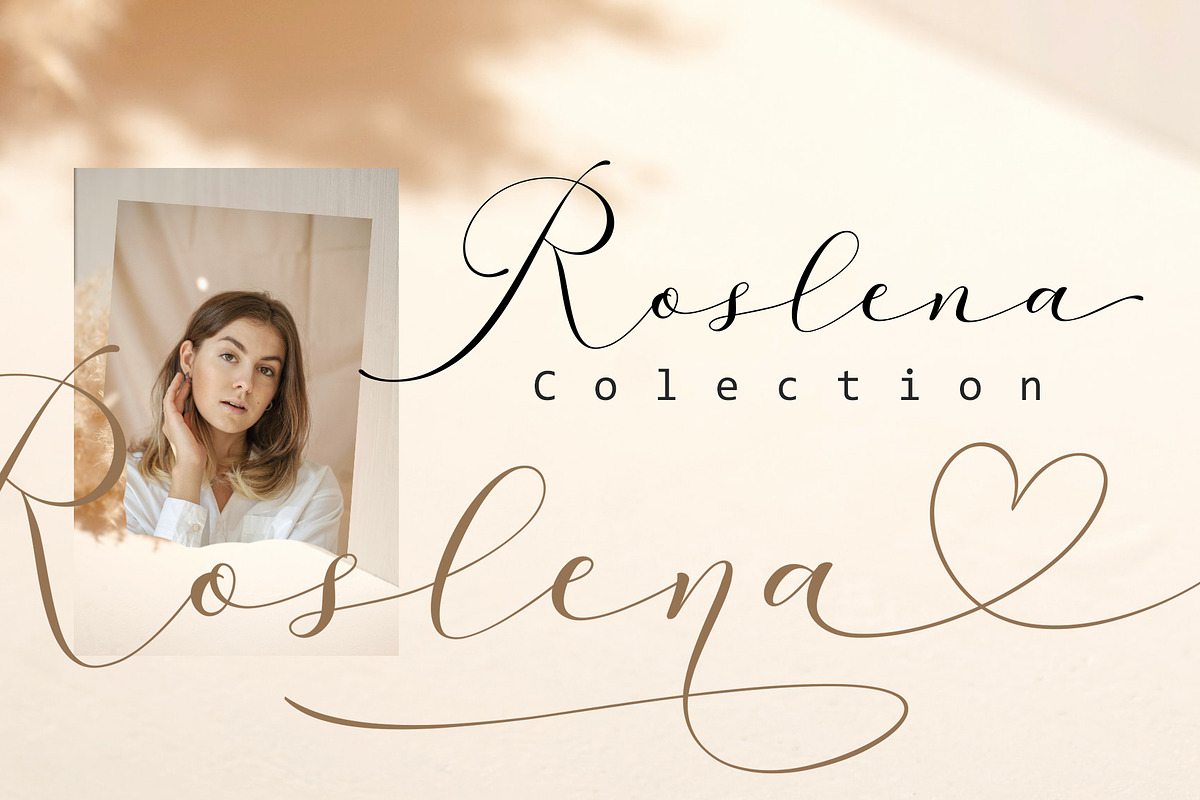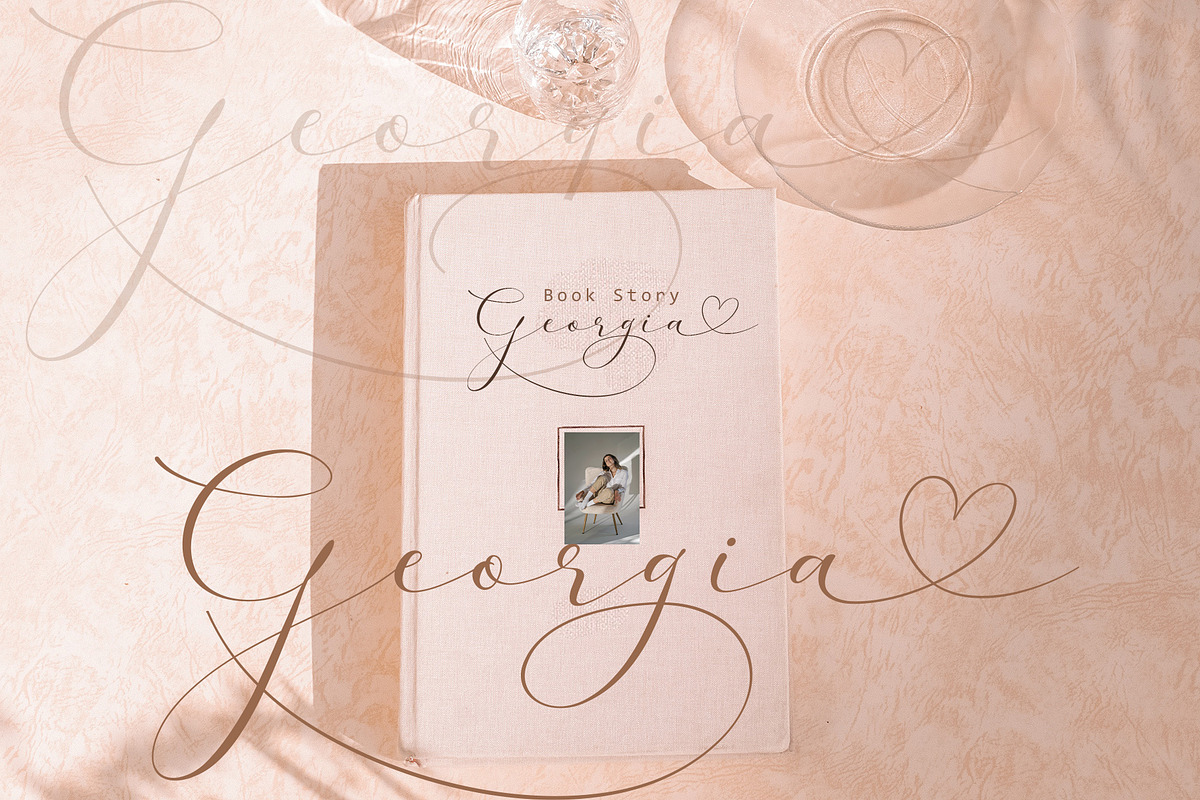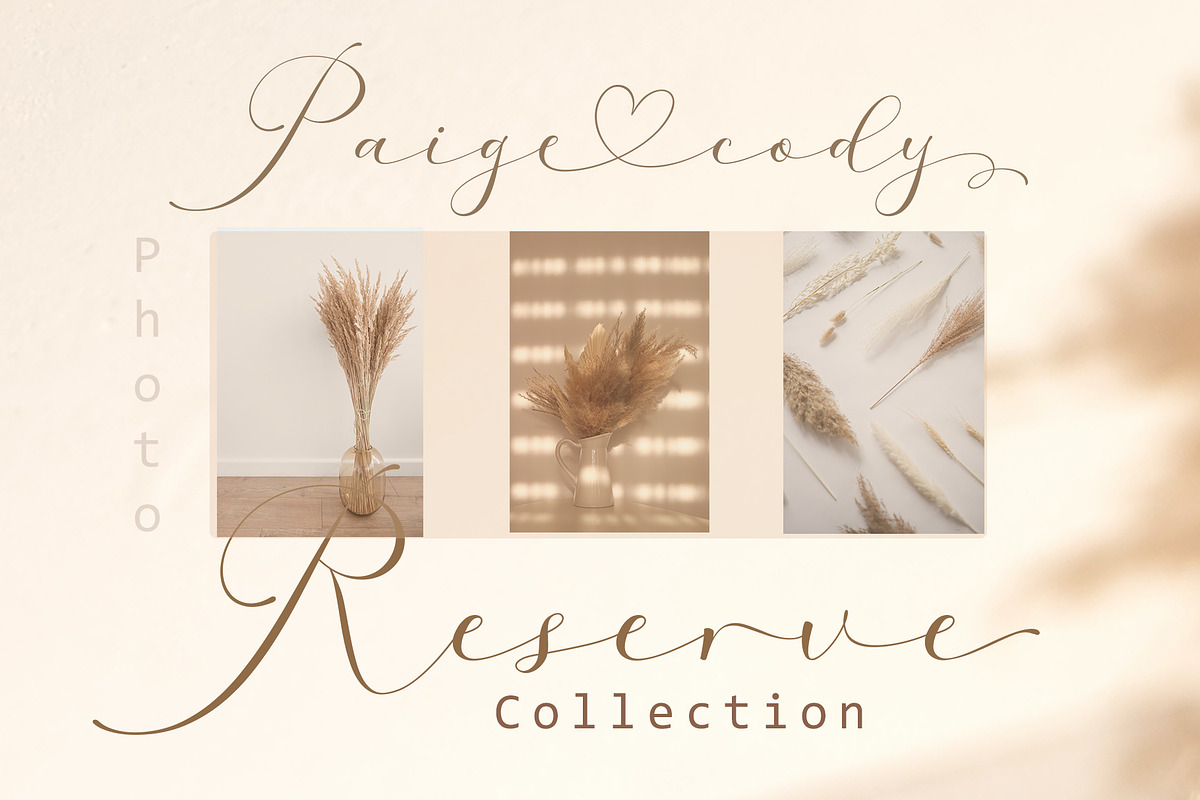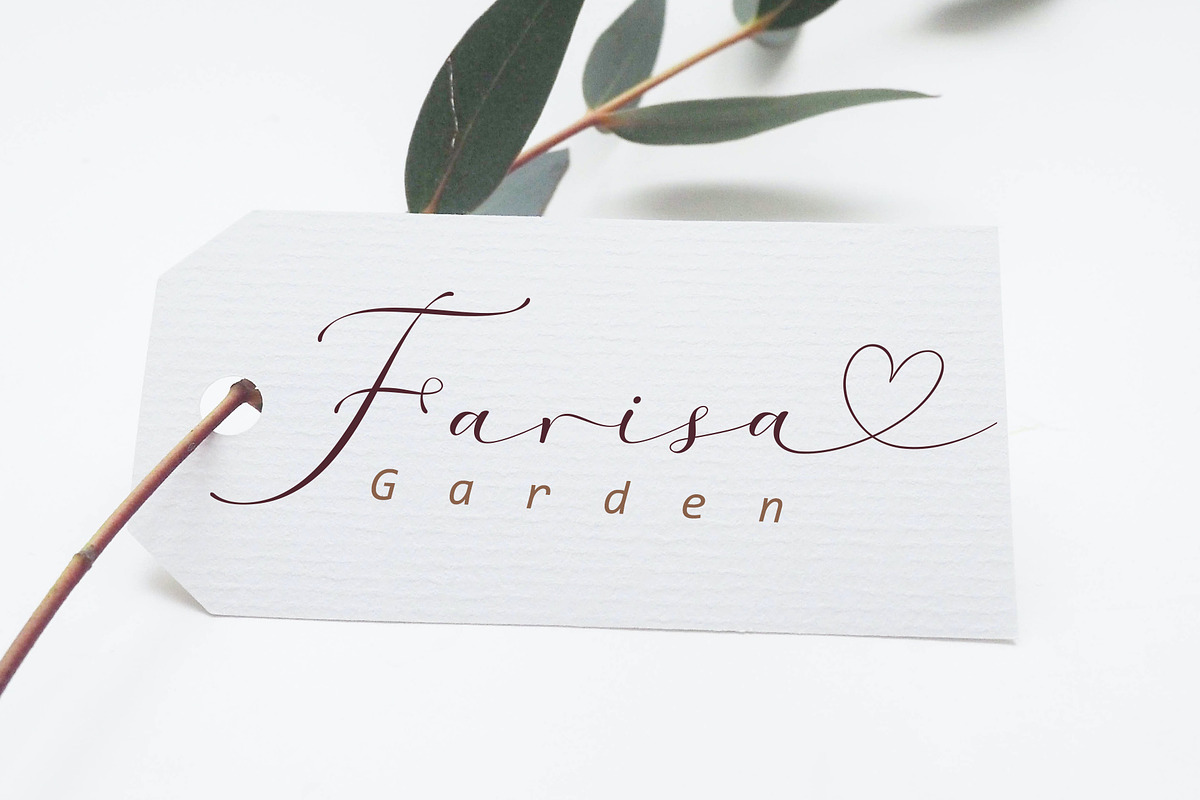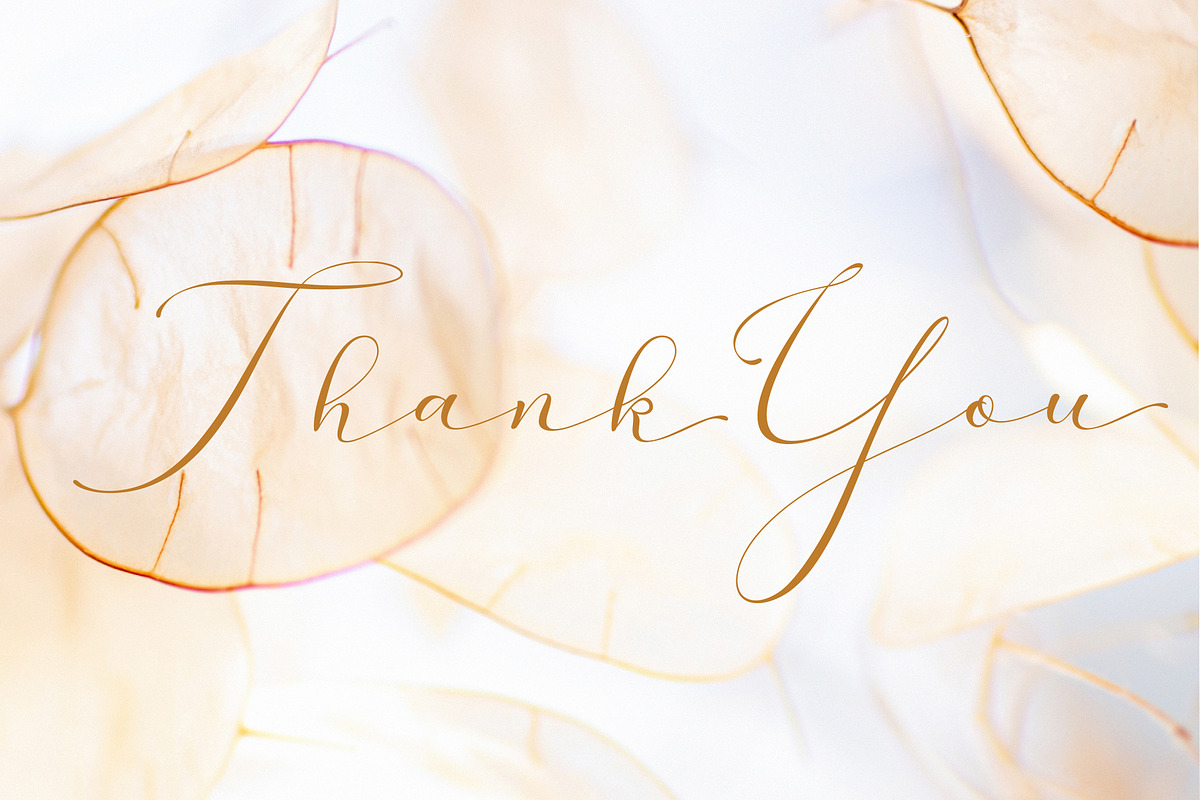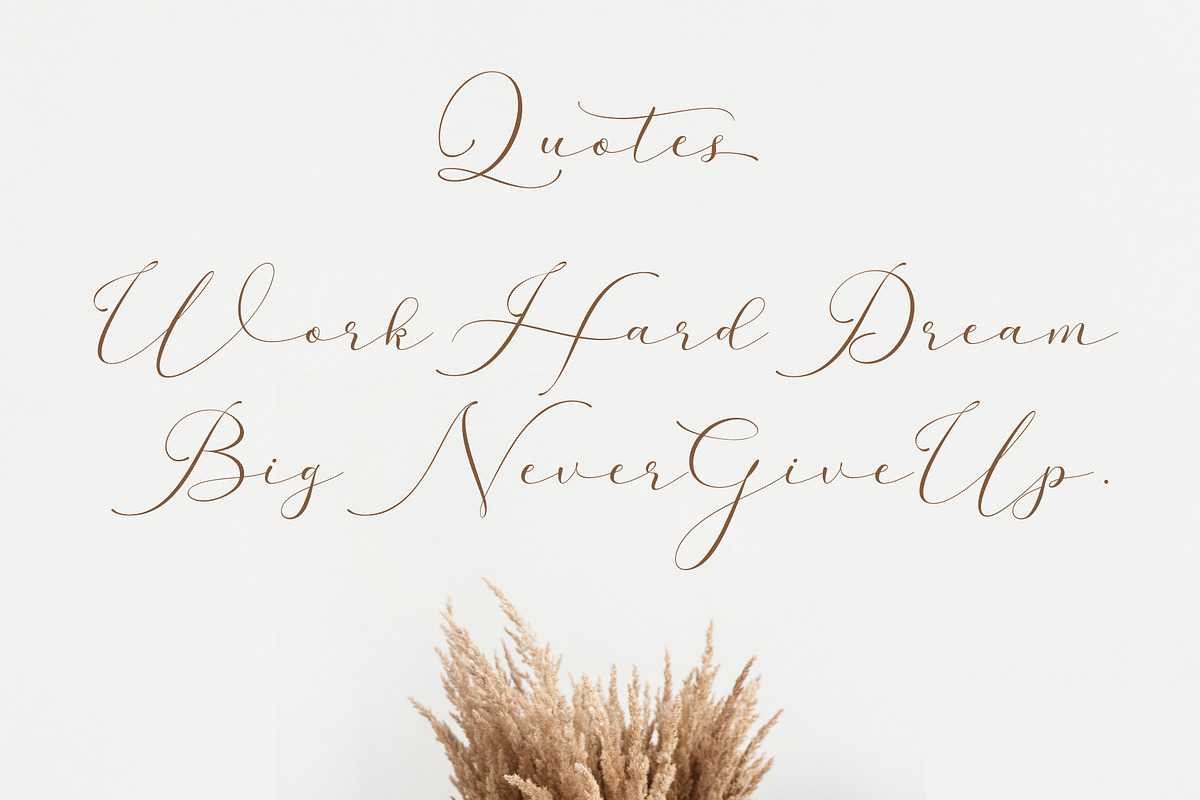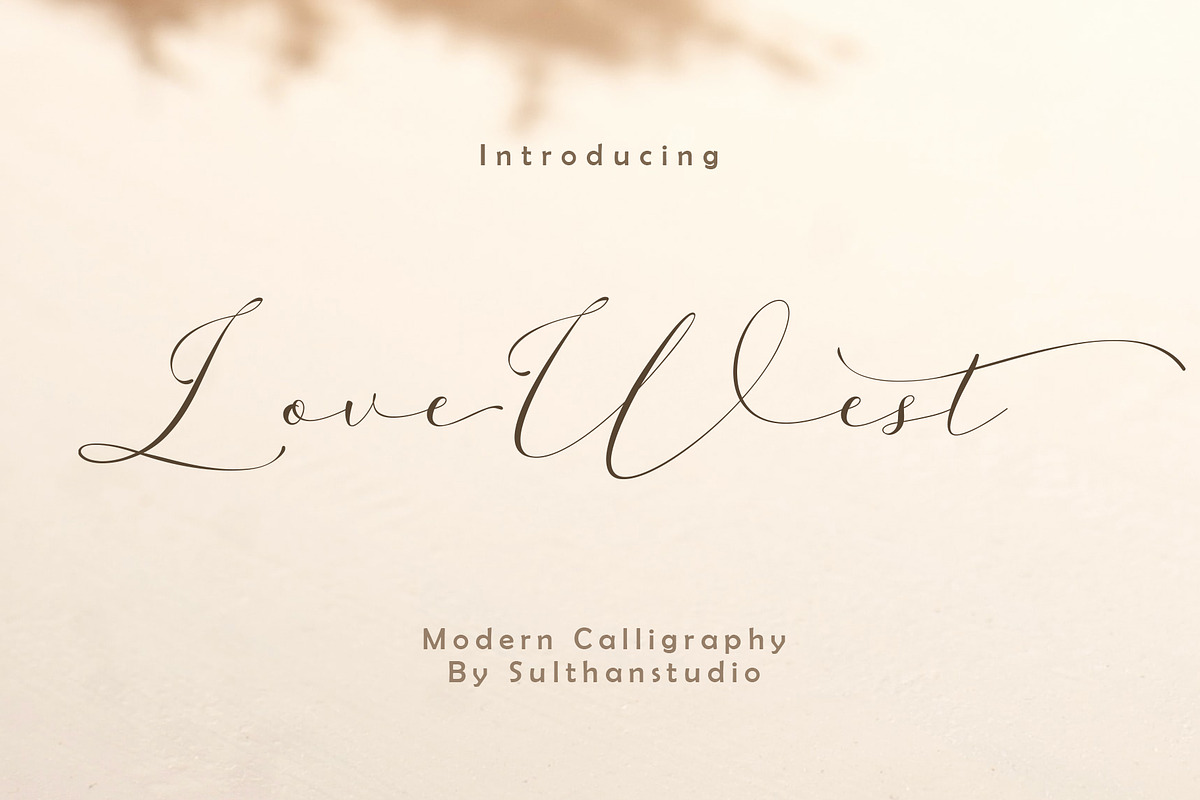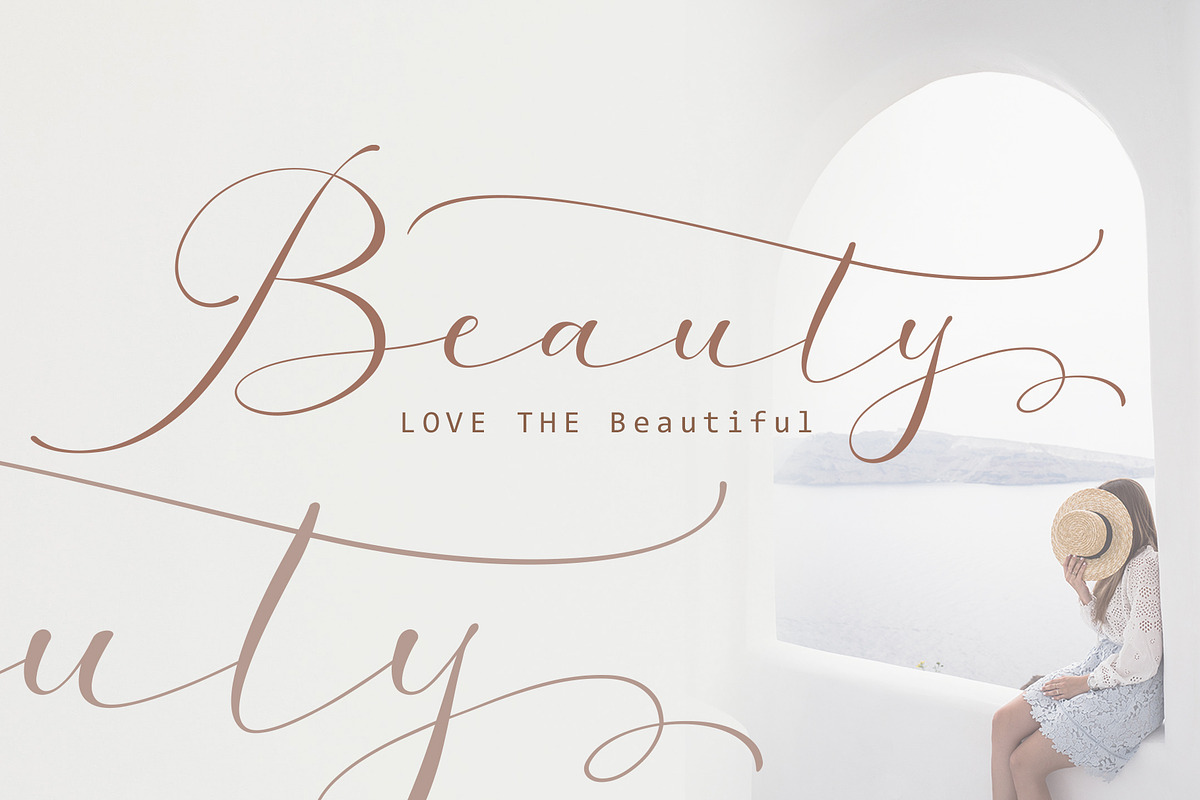
Love West
Love West is a modern calligraphy font, we made it as simple as possible, but very very interesting for any of your work that requires calligraphy writing like writing with original ink. And also with the OpenType feature for alternative font choices. encoded with PUA This font is perfect for any project like wedding invitations, branding projects, Logo design, Apparel Branding, packaging, magazine titles, birthday invitations, advertisements, T-shirts, postcards, etc.